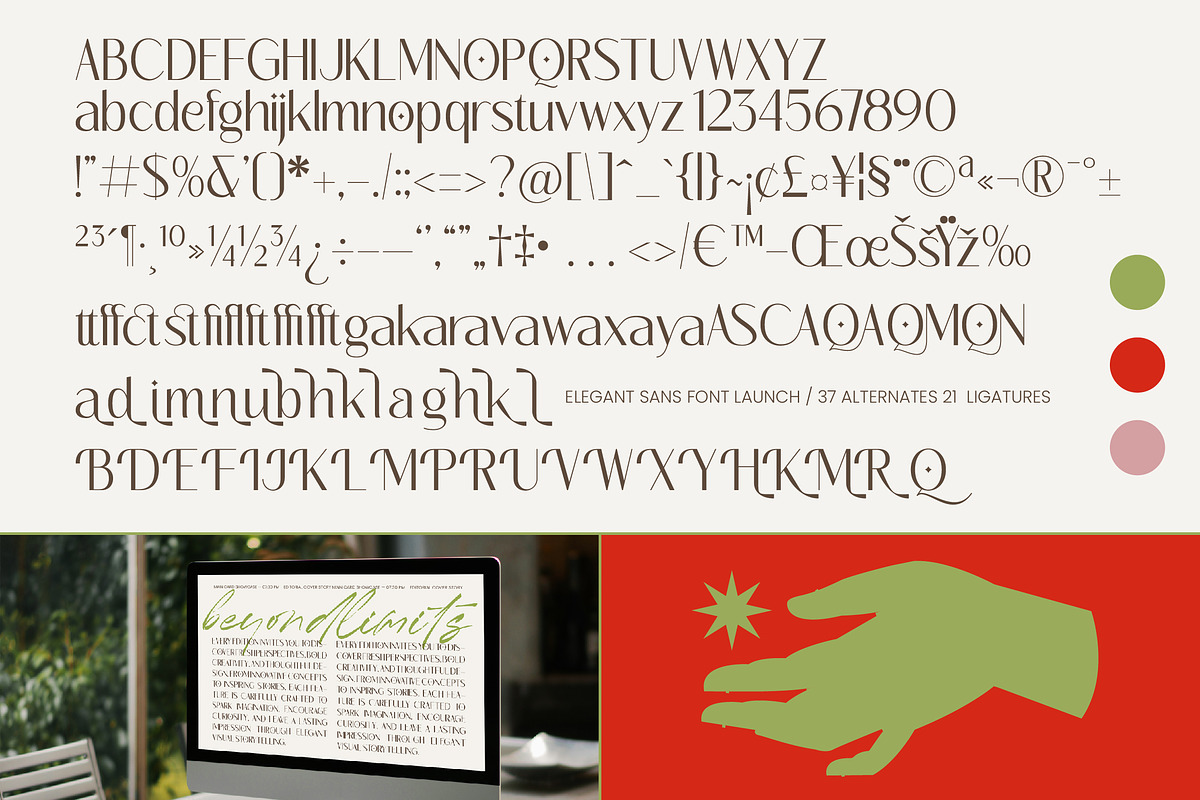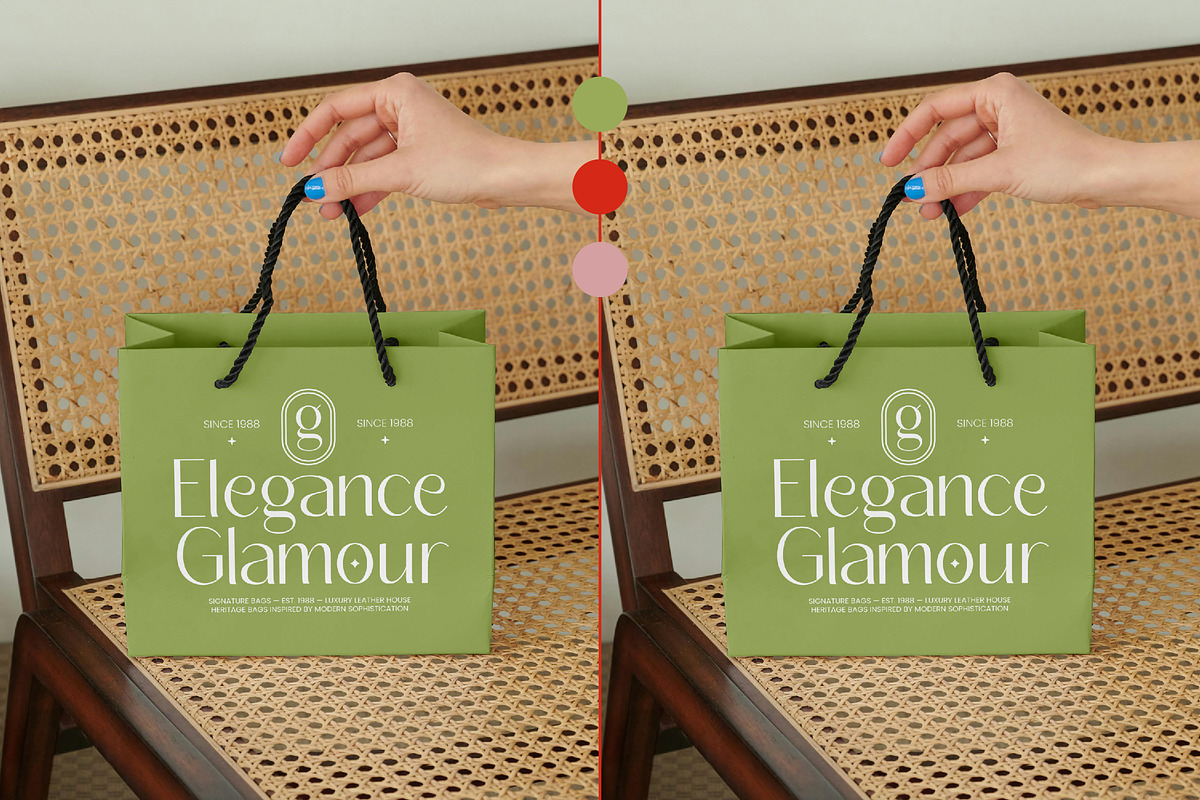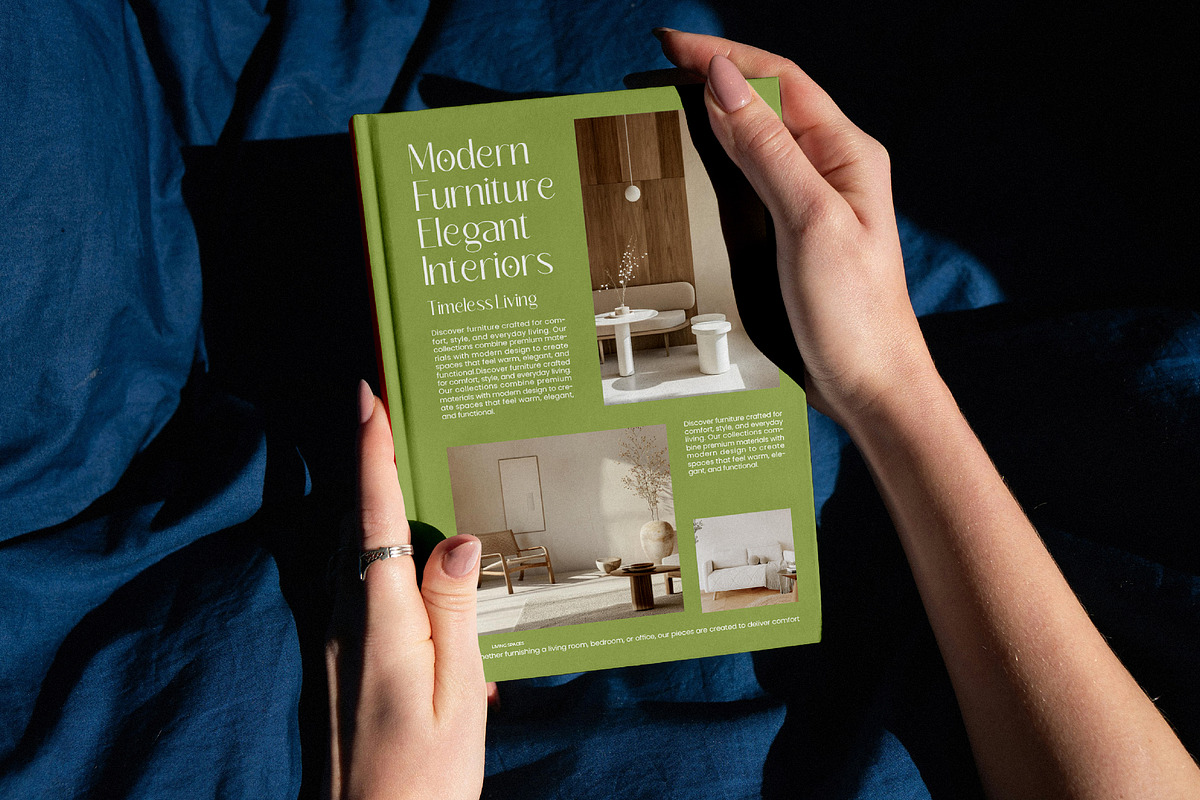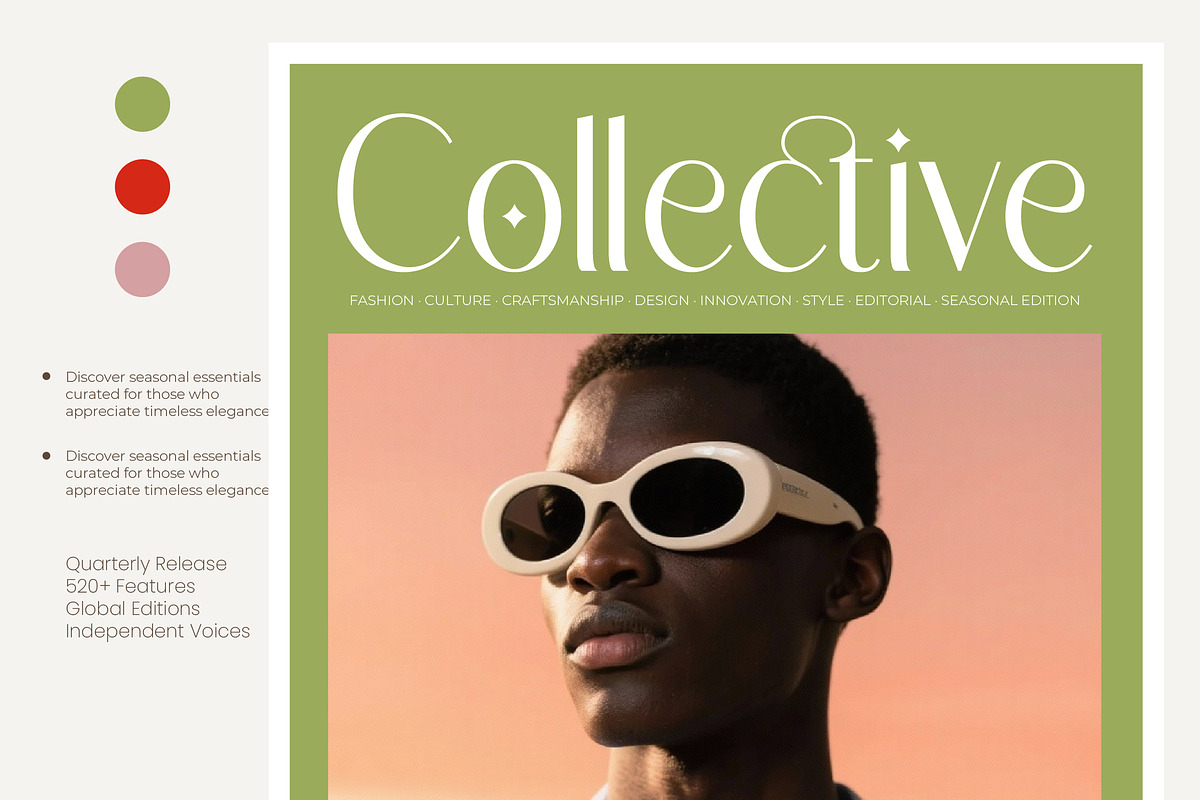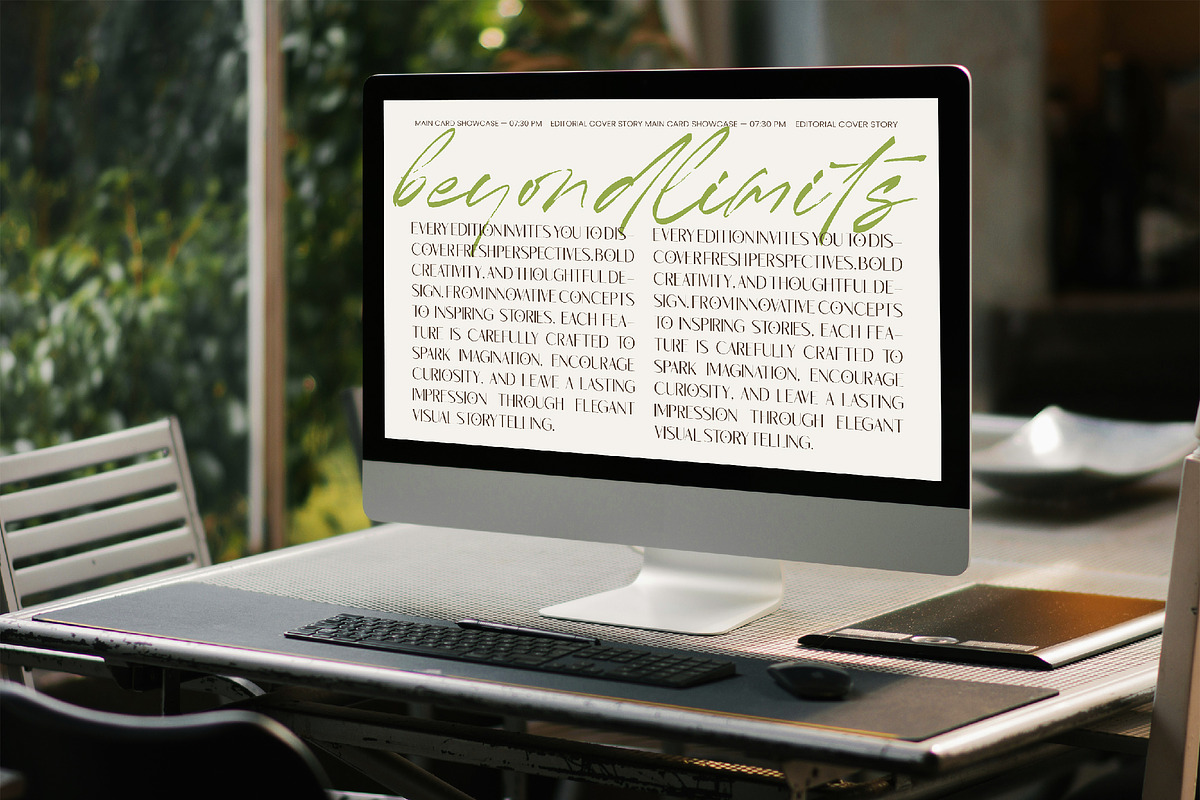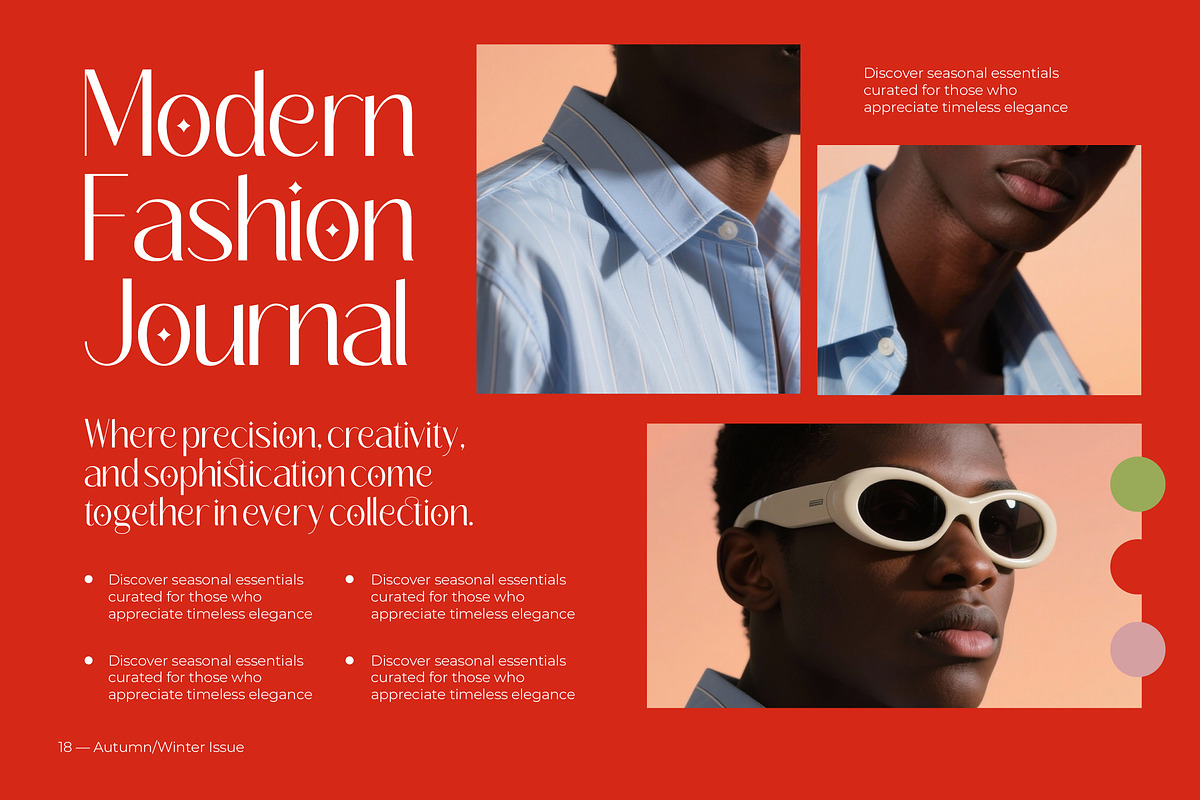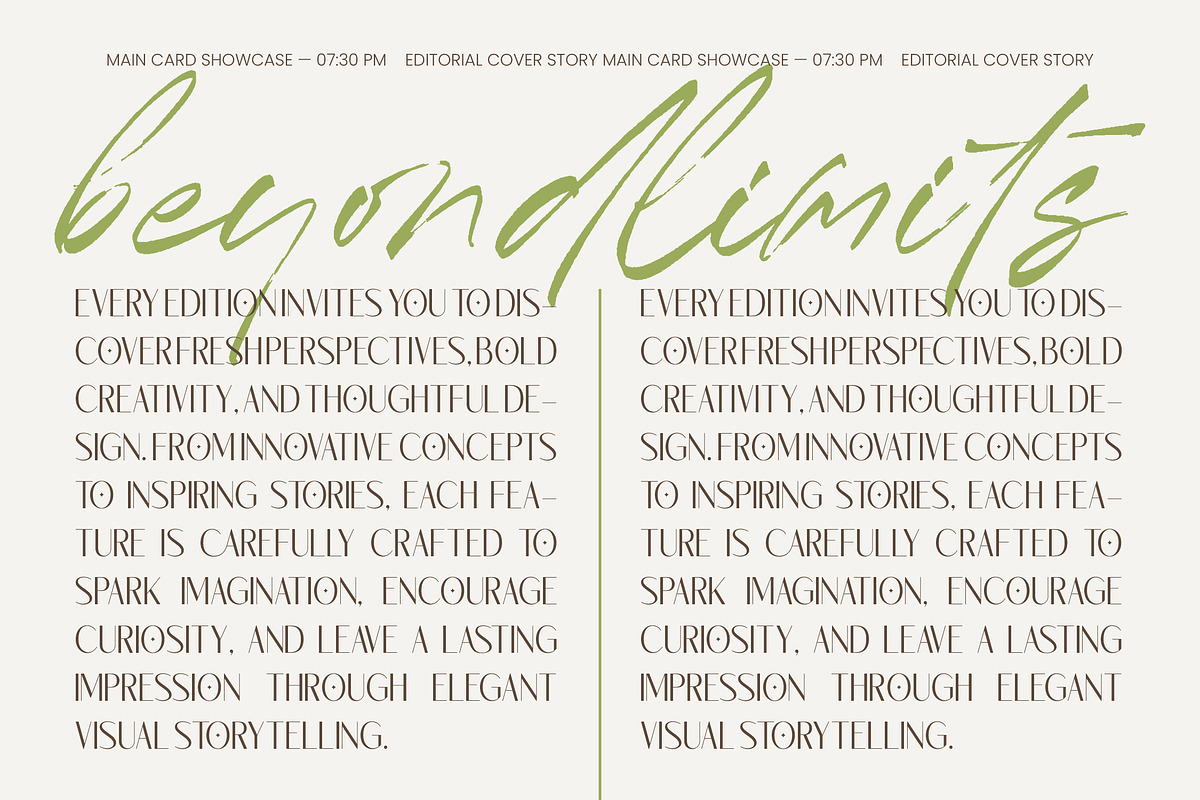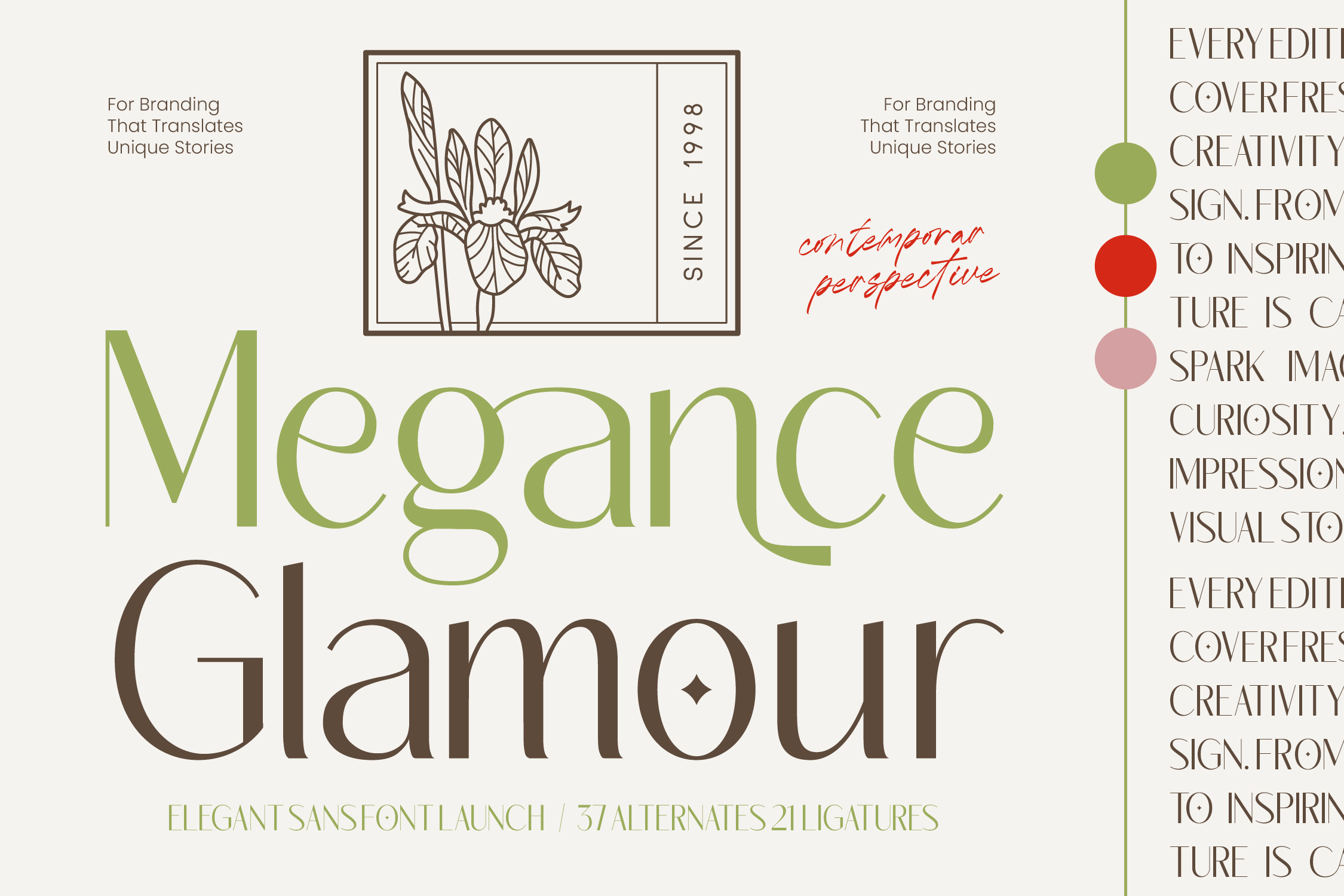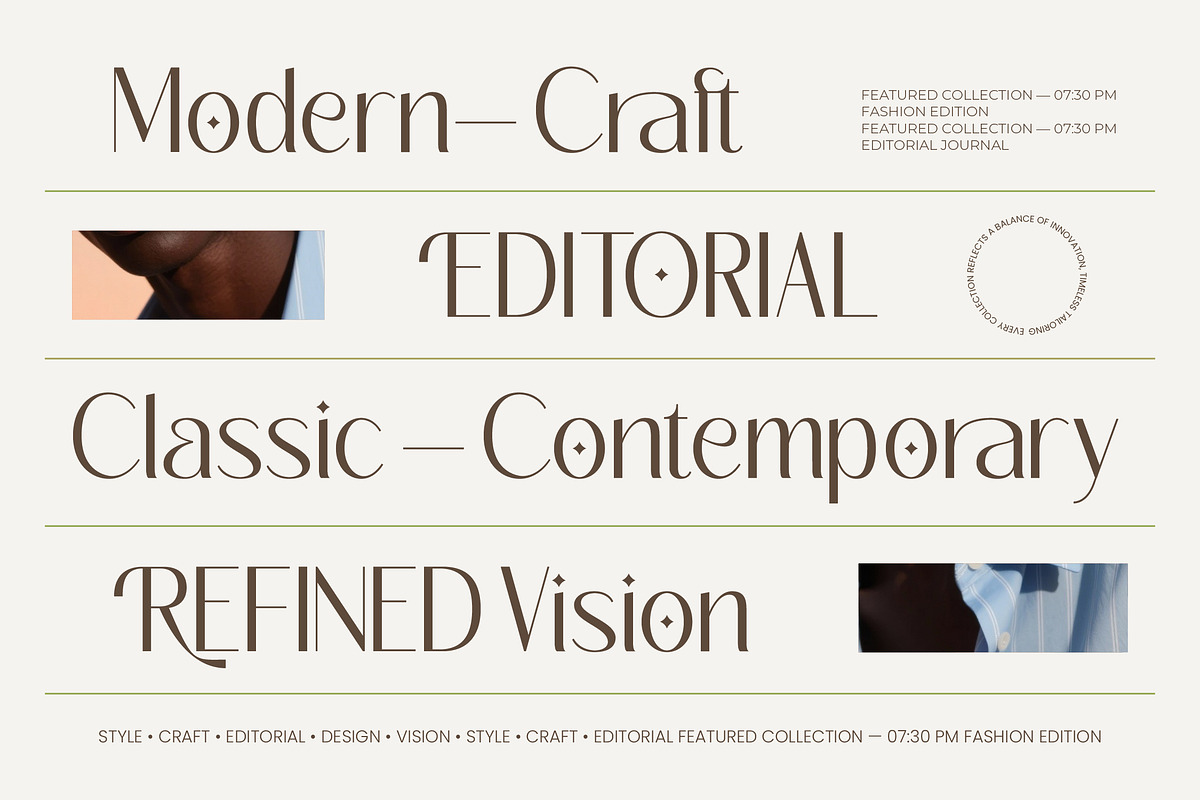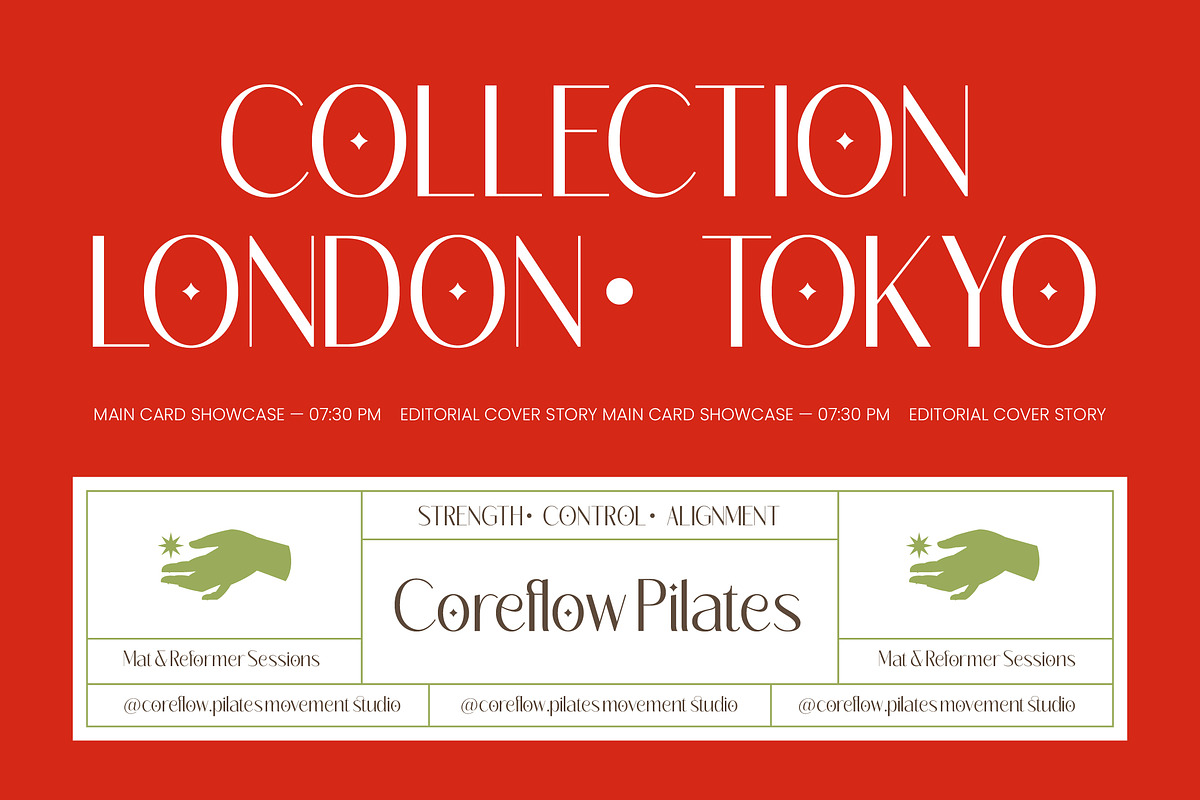
Megance Glamour Elegant Sans Font
Megance Glamour - Elegant Sans Font , Elevate your creative projects to a new standard of sophistication with Megance Glamour - Elegant Sans Font. This high-contrast sans-serif typeface blends a contemporary aesthetic with classic grace, offering designers a powerful tool for sophisticated typography. Its slender proportions and refined curves ensure that every word makes a statement of pure luxury and professional excellence.
Redefine luxury branding with a typeface meticulously crafted for maximum visual impact across diverse media. Megance Glamour - Elegant Sans Font is the perfect choice for high-end packaging, editorial design, and fashion magazines where elegance is paramount. Whether you are creating modern logos or social media content, this font provides the premium aesthetic required to stand out in a competitive marketplace.
Reach a worldwide audience effortlessly while maintaining a consistent and polished brand identity. With its extensive multilingual support, Megance Glamour - Elegant Sans Font adapts seamlessly across global markets, making it incredibly versatile for international projects. This ensures your message remains clear and stylish, regardless of the linguistic or geographic requirements of your target demographic.
Unlock endless creative possibilities by utilizing the 37 alternates and 21 ligatures included in this collection. These features allow Megance Glamour - Elegant Sans Font to facilitate visual storytelling through unique character combinations and custom flourishes. Invest in this premium design asset today to transform your layouts into masterpieces of modern typography and timeless appeal.